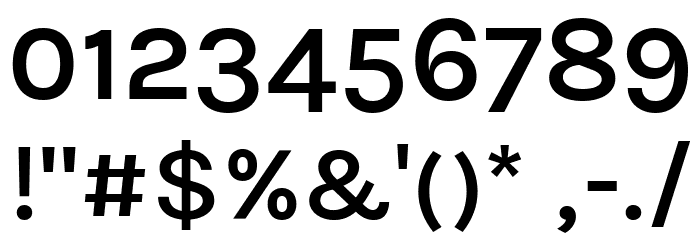
Karla Tamil Upright Bold Font
This typeface features a clean and modern design with a focus on readability and simplicity. The characters are bold and upright, providing a strong presence on the page. The strokes are consistent in thickness, giving the font a uniform appearance. The rounded edges and smooth curves contribute to its approachable and friendly look, making it suitable for a variety of applications. The numerals and special characters are designed to match the overall style, ensuring cohesion across different uses. This font is versatile, offering a contemporary feel that can enhance both digital and print media.
A bold, modern typeface with clean lines and a strong presence.
- Font: Karla Tamil Upright Bold
- Proposed Projects: Ideal for branding, advertising, headlines, and digital content.
- Category: Sans-Serif
- Use Case: Headlines, Logos, Digital content